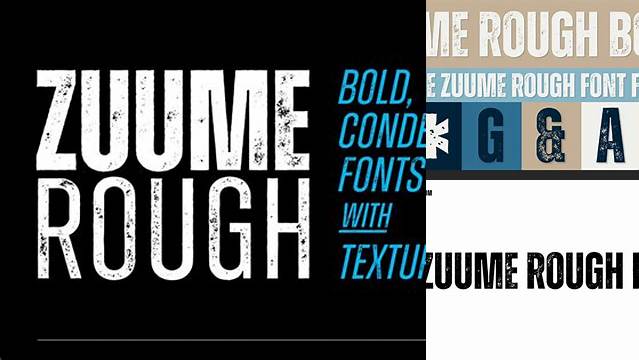
1. What is Zuume Rough Font?
Zuume Rough is more than just a font; it’s a statement. This typeface exudes character with its slightly distressed, hand-drawn feel. Think of it as the cool, rebellious cousin of more traditional fonts. The rough texture gives it an authentic, vintage vibe, making it perfect for projects that need a touch of grit and personality. Whether you’re designing a logo, crafting a poster, or even working on website headers, Zuume Rough can add that extra oomph. Its versatility lies in its ability to be both bold and approachable, making it a favorite among designers looking to break away from the mundane. The unique character of Zuume Rough stems from its intentional imperfections. The slightly uneven lines and textured edges give it a handcrafted feel, as if it were carefully drawn by hand. This makes it stand out from the crowd of perfectly polished, digital-looking fonts. If you want to convey authenticity and a human touch, Zuume Rough is definitely worth considering.
4. Key Features of Zuume Rough Demo
The Zuume Rough demo, while a taste of the full font, still packs a punch. You'll typically find a selection of the most common characters, often including uppercase and lowercase letters, numbers, and basic punctuation. This allows you to get a good feel for the font's overall style and how it looks in different contexts. However, keep in mind that the demo version usually has limitations. It might not include all the glyphs, alternates, or ligatures that are available in the full version. This is a standard practice to encourage users to purchase the complete font if they find it suitable for their needs. Despite these limitations, the demo is more than enough to assess the font's readability, its texture, and its overall impact on your designs. You can try it out in mockups, create headlines, or even use it for short paragraphs of text. This hands-on experience is invaluable in determining whether Zuume Rough is the right fit for your project. The demo version also gives you a chance to evaluate the font's technical aspects, such as its kerning and spacing, which are crucial for ensuring a professional and polished look.
6. Using Zuume Rough in Graphic Design Projects
Zuume Rough shines in a variety of graphic design projects. Its rugged, hand-drawn aesthetic makes it a fantastic choice for logos, posters, and branding materials. Imagine a logo for a coffee shop with a rustic vibe – Zuume Rough would be perfect! Its distinctive texture adds a touch of authenticity and character, making your designs stand out from the crowd. When using Zuume Rough in graphic design, consider the overall tone and message you want to convey. Its slightly distressed appearance can evoke feelings of nostalgia, craftsmanship, and a touch of rebellion. This makes it ideal for projects that aim to be unique and memorable. For posters, Zuume Rough can be used for headlines and subheadings, grabbing the viewer's attention and creating a strong visual impact. In branding materials, it can add a personal touch, making your brand feel more approachable and human. Experiment with different sizes and weights to see how Zuume Rough performs in various contexts. You might find that it works best in larger sizes where its texture is more prominent. Pair it with clean, sans-serif fonts for body text to create a balanced and visually appealing design.
7. Zuume Rough for Web Design
Thinking about web design? Zuume Rough can be a game-changer! It's not just for print; this font can add a ton of personality to your website. Imagine using it for headings and titles – it instantly grabs attention and sets a unique tone. The key is to use it strategically. Overusing a textured font like Zuume Rough can make your website look cluttered and difficult to read. Instead, use it sparingly for key elements like headings, logos, and calls to action. This will make those elements pop while maintaining a clean and professional overall design. When using Zuume Rough on the web, consider its readability. While its texture is part of its charm, it's important to ensure that the text is still easy to read, especially at smaller sizes. Test it out on different devices and screen sizes to see how it performs. You might need to adjust the font size or letter spacing to optimize its readability. Also, think about the font pairing. Zuume Rough works well with clean, sans-serif fonts for body text. This combination creates a nice contrast and ensures that your website is both visually appealing and easy to navigate.
8. Pairing Zuume Rough with Other Fonts
Font pairing is an art, and choosing the right companion for Zuume Rough is crucial. Because Zuume Rough has a strong personality, it's best paired with fonts that are more neutral and understated. Think clean sans-serifs like Open Sans, Lato, or Montserrat. These fonts provide a nice contrast to Zuume Rough's texture and prevent your design from feeling too busy. The goal is to create a visual hierarchy that guides the viewer's eye and makes the text easy to read. Using a bold, textured font like Zuume Rough for headlines and a clean sans-serif for body text is a classic and effective approach. This combination ensures that your headlines grab attention while the body text remains legible and unobtrusive. Another option is to pair Zuume Rough with a simple serif font, such as Merriweather or Playfair Display. This combination can create a more elegant and sophisticated look, but it requires careful consideration of the overall design. Make sure the serif font is clean and modern, not overly ornate or distracting. Experiment with different font pairings and see what works best for your project. Don't be afraid to try unconventional combinations, but always prioritize readability and visual harmony.